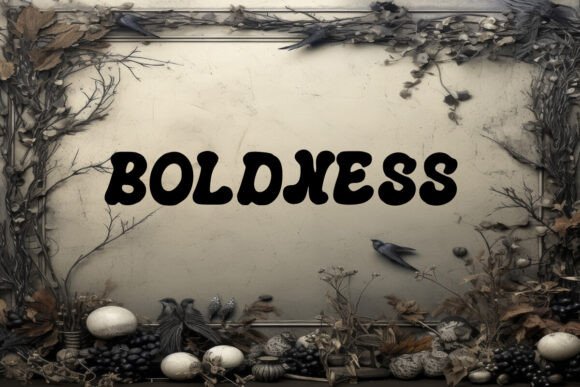
Unleash Your Creativity with Boldness Font: Elevate Your Designs to the Next Level
In the world of design, typography plays a crucial role in conveying messages, expressing emotions, and creating visual impact. When it comes to making a statement, a bold font can be a game-changer. Introducing the Boldness Font, a versatile typeface designed to add a touch of boldness to your creations. Whether you’re crafting eye-catching shirts, playful stickers, distinctive branding, or dynamic magazine layouts, this modern and adaptable font is perfect for transforming simple designs into pieces of art.
Key Features of Boldness Font
- Versatility: The Boldness Font is designed to be adaptable, making it suitable for a wide range of design projects, from posters and social media posts to greeting cards and Cricut projects.
- Bold and Eye-Catching: With its bold and modern design, this font is perfect for creating eye-catching designs that grab attention.
- Scalable: This font is designed to be scalable, ensuring that it looks great in any size or resolution.
Design Applications of Boldness Font
The Boldness Font is perfect for a variety of design applications, including:
- Shirts and Apparel: Create eye-catching shirts, hoodies, and other apparel with the Boldness Font.
- Stickers and Labels: Add a playful touch to your stickers and labels with this bold and modern font.
- Branding and Marketing: Use the Boldness Font to create distinctive branding and marketing materials, such as logos, brochures, and business cards.
- Magazine Layouts: Add a touch of boldness to your magazine layouts with this versatile font.
Creative Cricut Projects with Boldness Font
The Boldness Font is perfect for Cricut projects, including:
- Greeting Cards: Create heartfelt greeting cards with a personal touch using the Boldness Font.
- Paper Crafts: Add a creative twist to your paper crafts, such as scrapbooking and card making.
- Vinyl Decals: Create custom vinyl decals for your home, car, or laptop with the Boldness Font.
Elevate Your Digital Designs with Boldness Font
The Boldness Font is not just limited to print designs. It’s also perfect for digital designs, including:
- Social Media Posts: Add a touch of boldness to your social media posts, such as Facebook, Instagram, and Twitter.
- Posters and Flyers: Create eye-catching posters and flyers with the Boldness Font.
- Email Marketing: Use the Boldness Font to create visually appealing email marketing campaigns.
Tips and Tricks for Using Boldness Font
Here are some tips and tricks for getting the most out of the Boldness Font:
- Experiment with Colors: Try out different colors and color combinations to add depth and interest to your designs.
- Play with Sizes: Experiment with different font sizes to create visual hierarchy and emphasis.
- Combine with Other Fonts: Combine the Boldness Font with other fonts to create a unique and visually appealing design.
In conclusion, the Boldness Font is a versatile and modern typeface that can elevate your designs to the next level. With its bold and eye-catching design, this font is perfect for a wide range of design applications, from shirts and stickers to branding and digital designs. Whether you’re a professional designer or a DIY enthusiast, the Boldness Font is a great addition to your design toolkit.